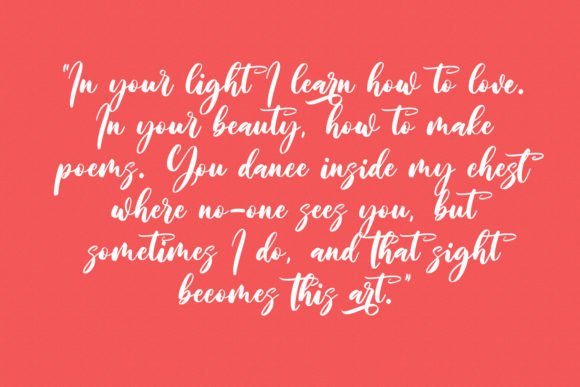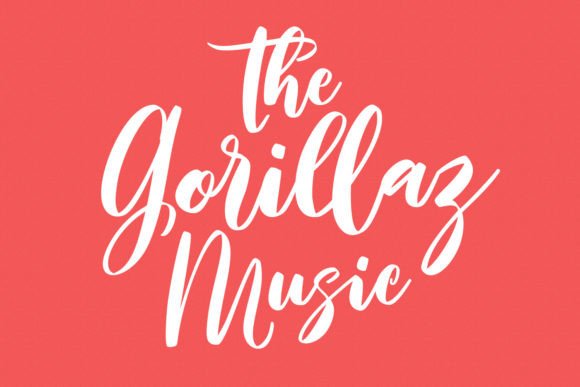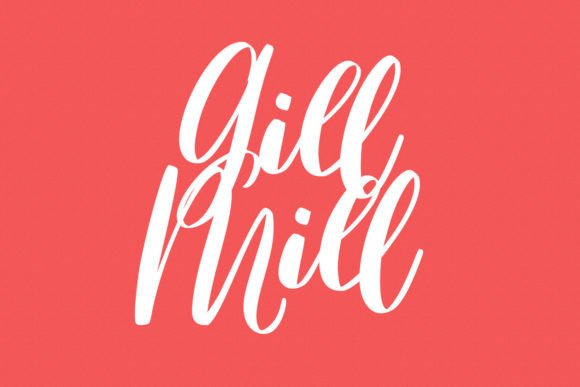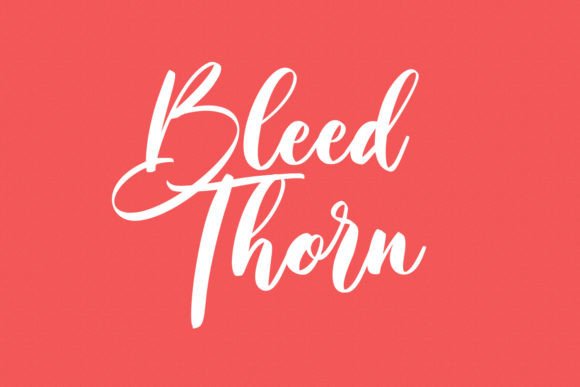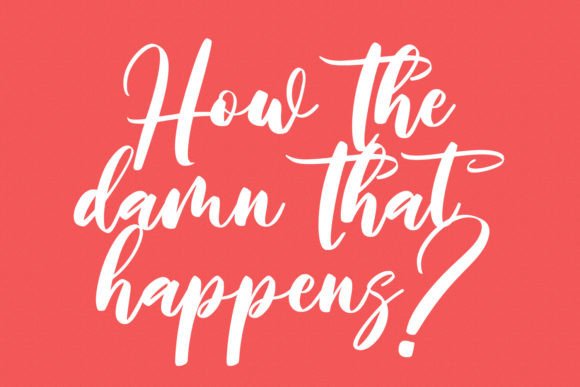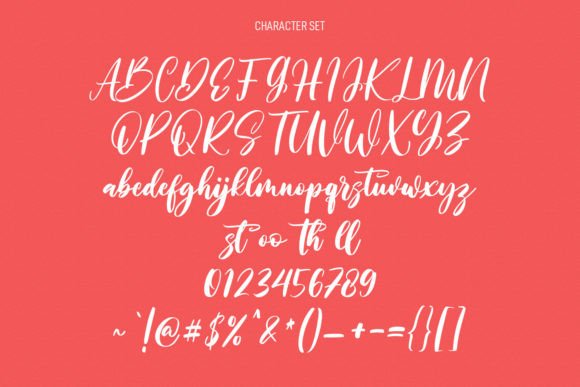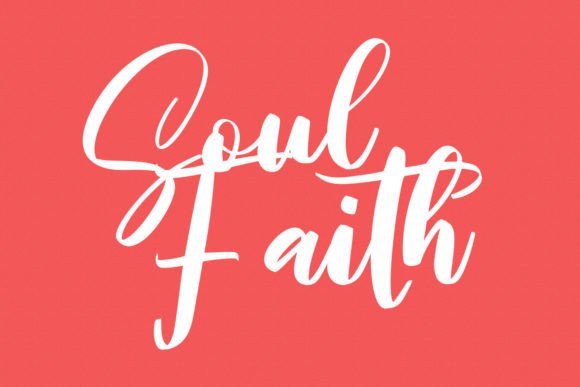
Shineshort Font
About Shineshort Handwritten Font
Shineshort Handwritten Font is a gorgeous and elegant script designed to enhance your creative projects with sophistication. Its flowing lines, graceful curves, and natural balance bring the authenticity of handwriting into professional design work. Because of its versatility, Shineshort Handwritten Font is perfect for invitations, posters, packaging, branding, logos, and social media graphics.
A Handwritten Typeface with Natural Elegance
Handwritten fonts often reflect personality and charm, and Shineshort Handwritten Font captures these qualities beautifully. Its strokes are neat, flowing, and well-balanced, giving your designs a polished yet authentic look. In addition, its readability ensures it works equally well for detailed text and bold headlines.
Special occasions require fonts that express beauty, and Shineshort Handwritten Font is an excellent choice. For example, it elevates wedding invitations, thank-you cards, and menus with elegance. Moreover, it adds warmth to seasonal greeting cards, birthday stationery, and festive projects, making each design unique and memorable.
A Script Typeface for Branding and Packaging
Businesses and creatives can rely on Shineshort HandwrittenFont to strengthen their branding. It looks stunning on boutique logos, product packaging, and promotional materials. Furthermore, it adapts seamlessly to magazine layouts, advertisements, and social media posts. When paired with clean sans serif fonts, it creates a professional and modern brand identity.
Flexible Across Print and Digital Media
Another advantage of Shineshort HandwrittenFont is its adaptability across platforms. In print, it enriches posters, brochures, and stationery with a stylish flair. Digitally, it integrates smoothly into blogs, websites, and e-commerce shops. Since it scales clearly from small icons to large banners, it guarantees clarity and consistency everywhere.